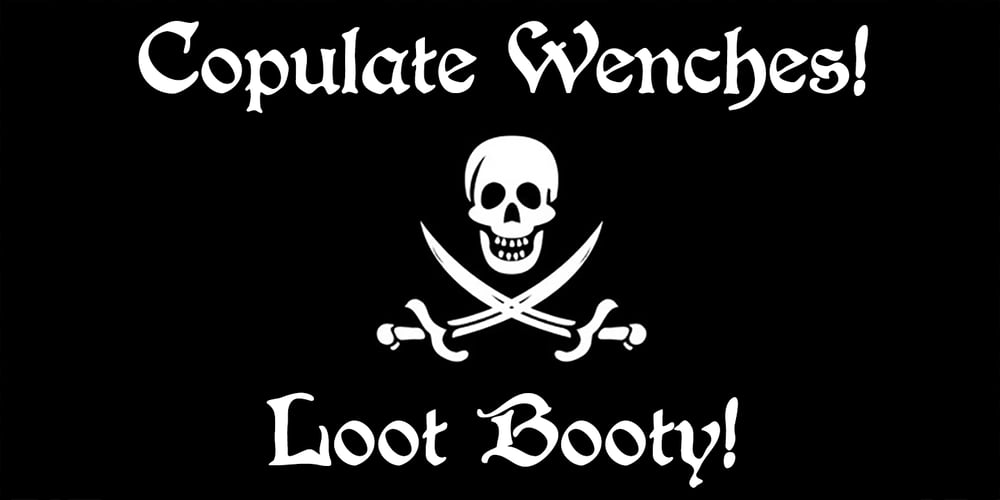
Boister Black Pro Font Family was designed by Roger S. Nelsson, Paul James Lloyd and published by CheapProFonts. Boister Black Pro contains 1 styles and family package options. I loved the look of this font so much that I couldn’t resist reworking it – although it probably had the most basic character set I’ve ever used as a starting point. But here it is in its complete, professional, multilingual state. I hope this wonderful swashbuckling font now finds many new users and uses. Celebrate! ALL fonts from CheapProFonts have very extensive language support: They contain some unusual diacritic letters (some of which are contained in the Latin Extended-B Unicode block) supporting: Cornish, Filipino (Tagalog), Guarani, Luxembourgian, Malagasy, Romanian, Ulithian and Welsh. They also contain all glyphs in the Latin Extended-A Unicode block (which among others cover the Central European and Baltic areas) supporting: Afrikaans, Belarusian (Lacinka), Bosnian, Catalan, Chichewa, Croatian, Czech, Dutch, Esperanto, Greenlandic, Hungarian, Kashubian, Kurdish (Kurmanji), Latvian, Lithuanian, Maltese, Maori, Polish, Saami (Inari), Saami (North), Serbian (latin), Slovak(ian), Slovene, Sorbian (Lower), Sorbian (Upper), Turkish and Turkmen. And they of course contain all the usual “western” glyphs supporting: Albanian, Basque, Breton, Chamorro, Danish, Estonian, Faroese, Finnish, French, Frisian, Galican, German, Icelandic, Indonesian, Irish (Gaelic), Italian, Northern Sotho, Norwegian, Occitan, Portuguese, Rhaeto-Romance, Sami (Lule), Sami (South), Scots (Gaelic), Spanish, Swedish, Tswana, Walloon and Yapese.